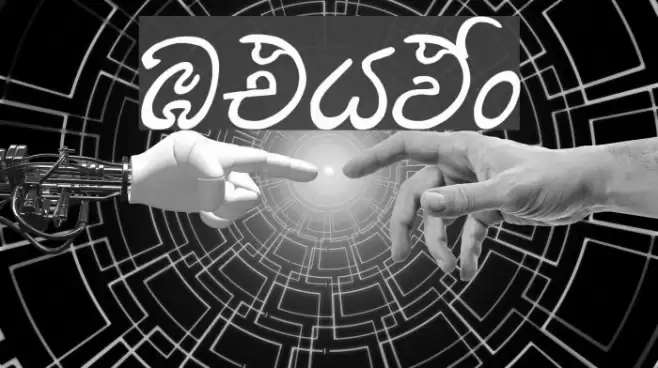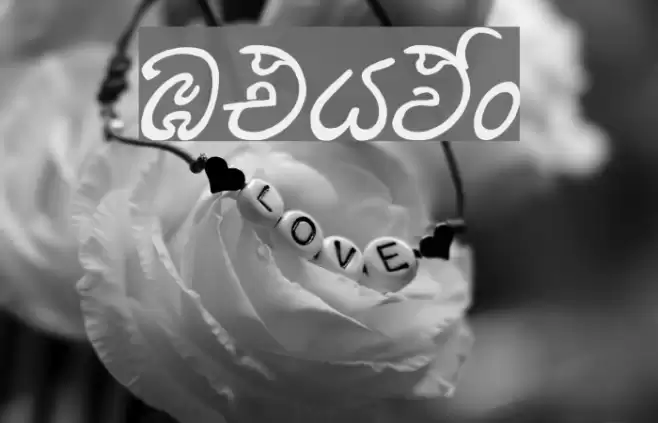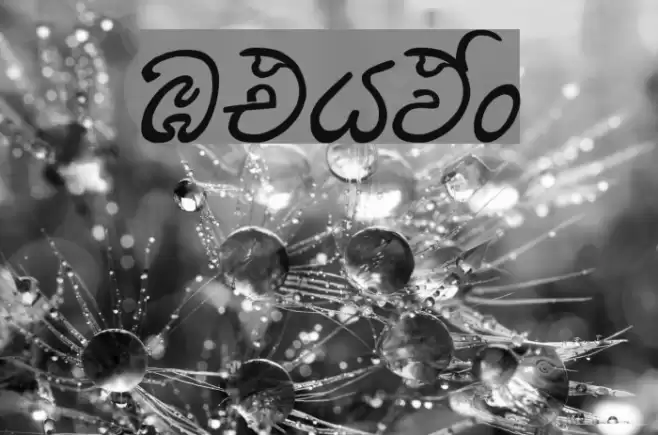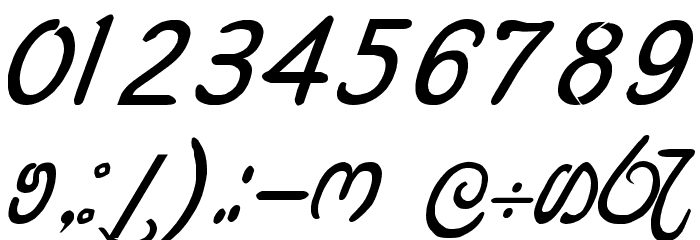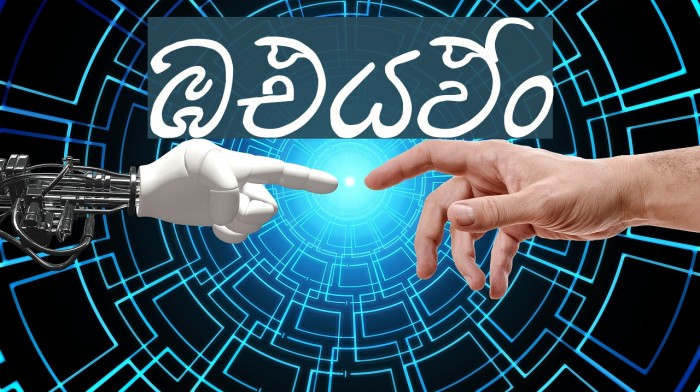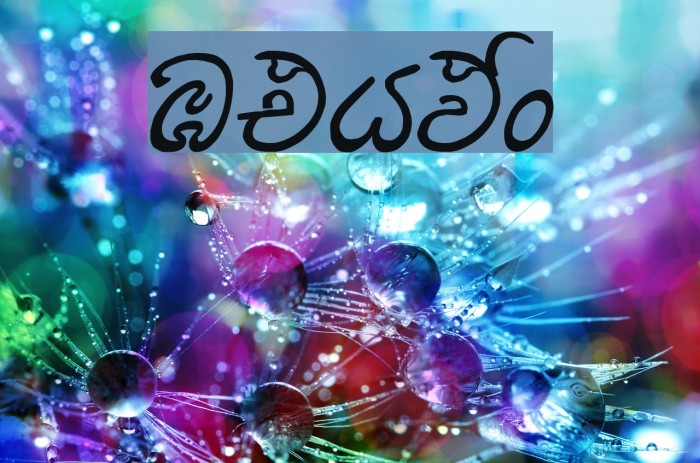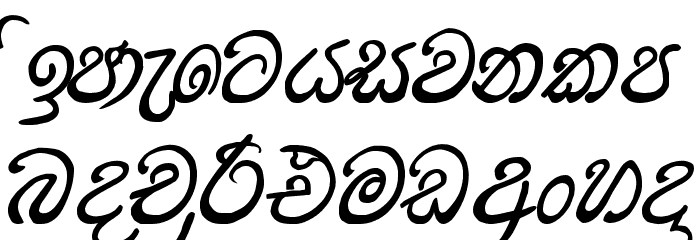
UthMax® Font
UthMax® Description
This font exhibits a flowing, cursive style with elegant curves and smooth transitions between characters. The script is characterized by its fluidity and artistic flair, making it visually appealing and suitable for decorative purposes. The numbers and special characters maintain the same stylistic approach, ensuring consistency across all elements. The font's design is reminiscent of traditional calligraphy, offering a sense of sophistication and grace. Its unique style can add a touch of elegance to any project, making it ideal for creative and artistic applications.
A flowing, cursive script with elegant curves and artistic flair from Uncategorized fonts.
- Proposed Projects: Ideal for wedding invitations, greeting cards, artistic posters, and branding materials that require a touch of elegance.
- Use Case: Logos, Invitations, Artistic projects